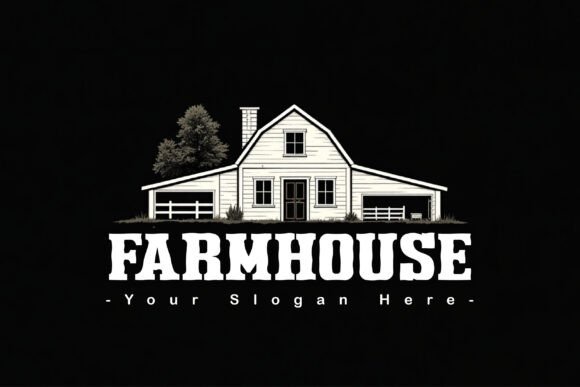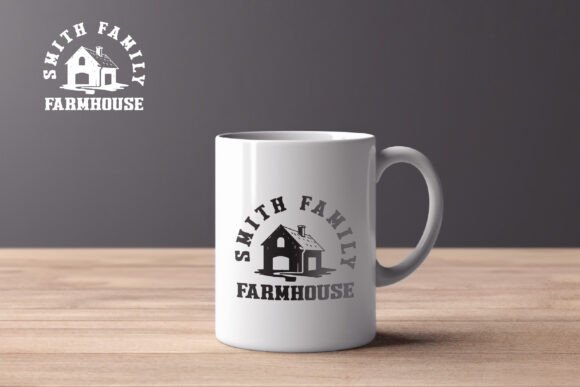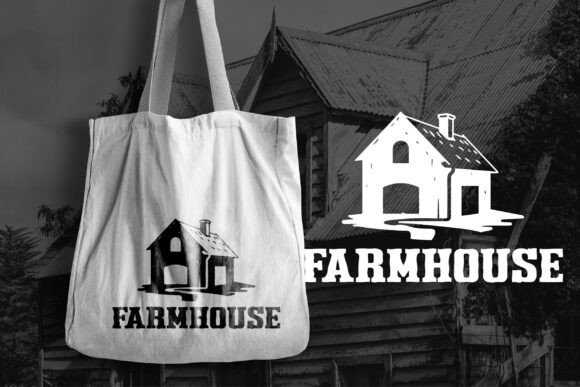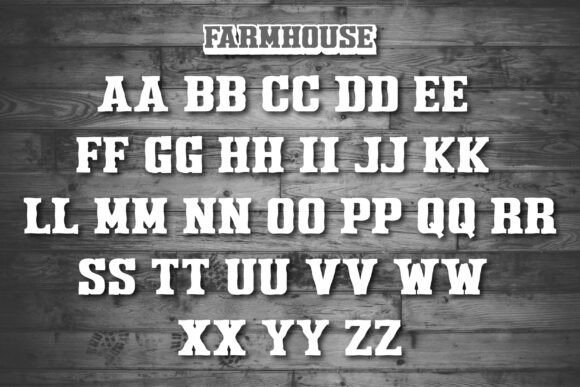
Farmhouse Serif Font
Experience the rustic charm of the Farmhouse Serif Font. this display font captures the essence of pastoral beauty, making it ideal for designing farm logos, inspiring quotes, statement t-shirts, and customised bags. Discover the compelling appeal of the Farmhouse Serif Font, taking your creative designs to a new level of aesthetic intrigue.